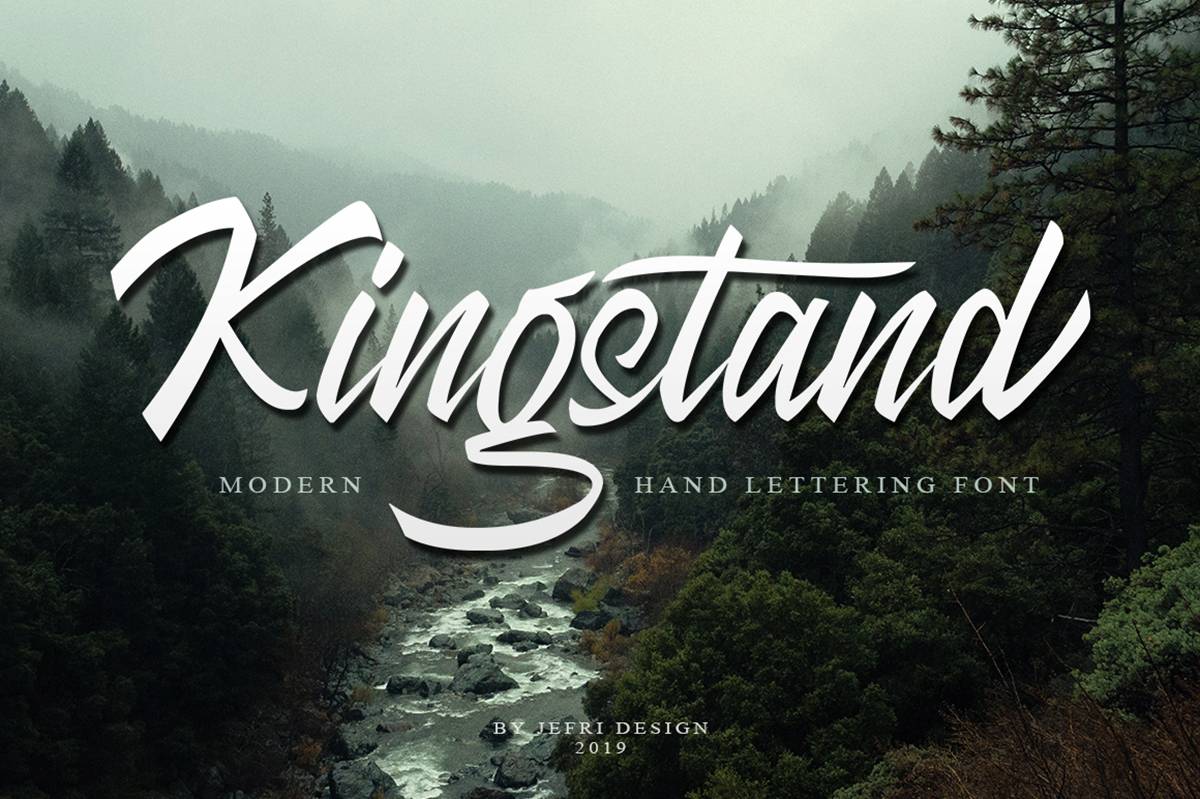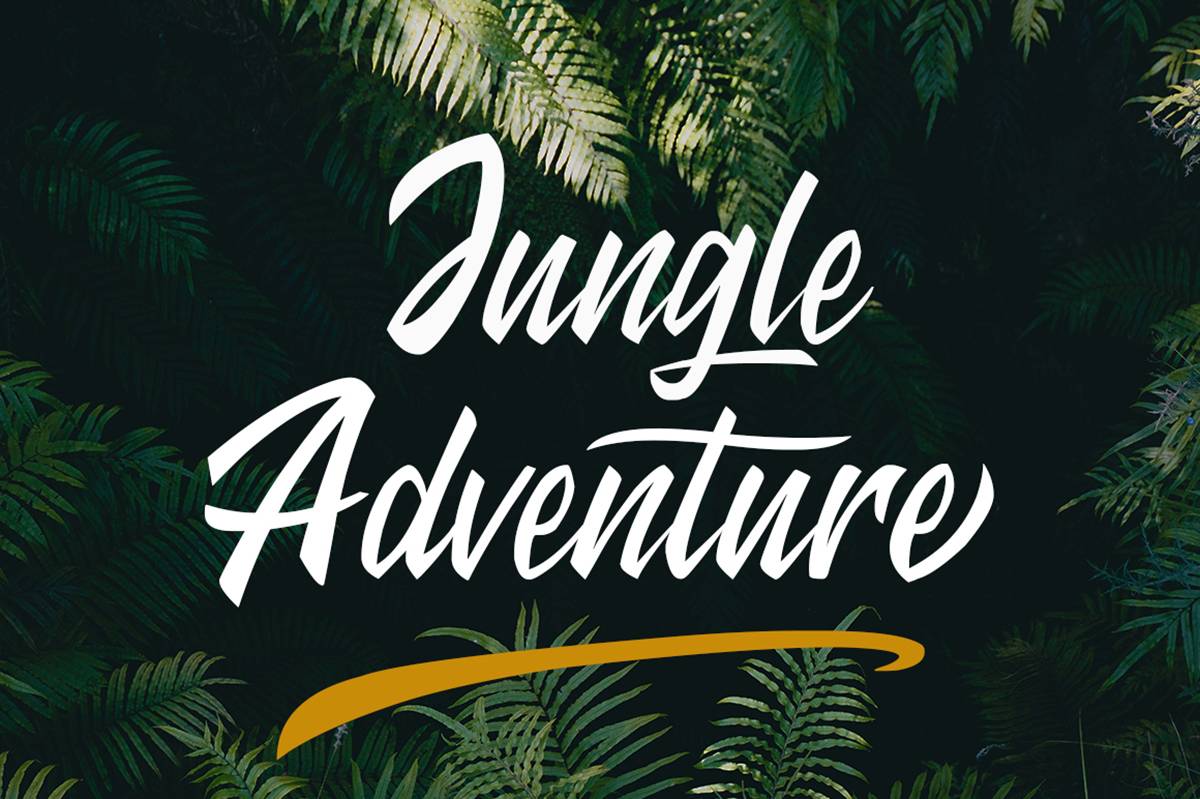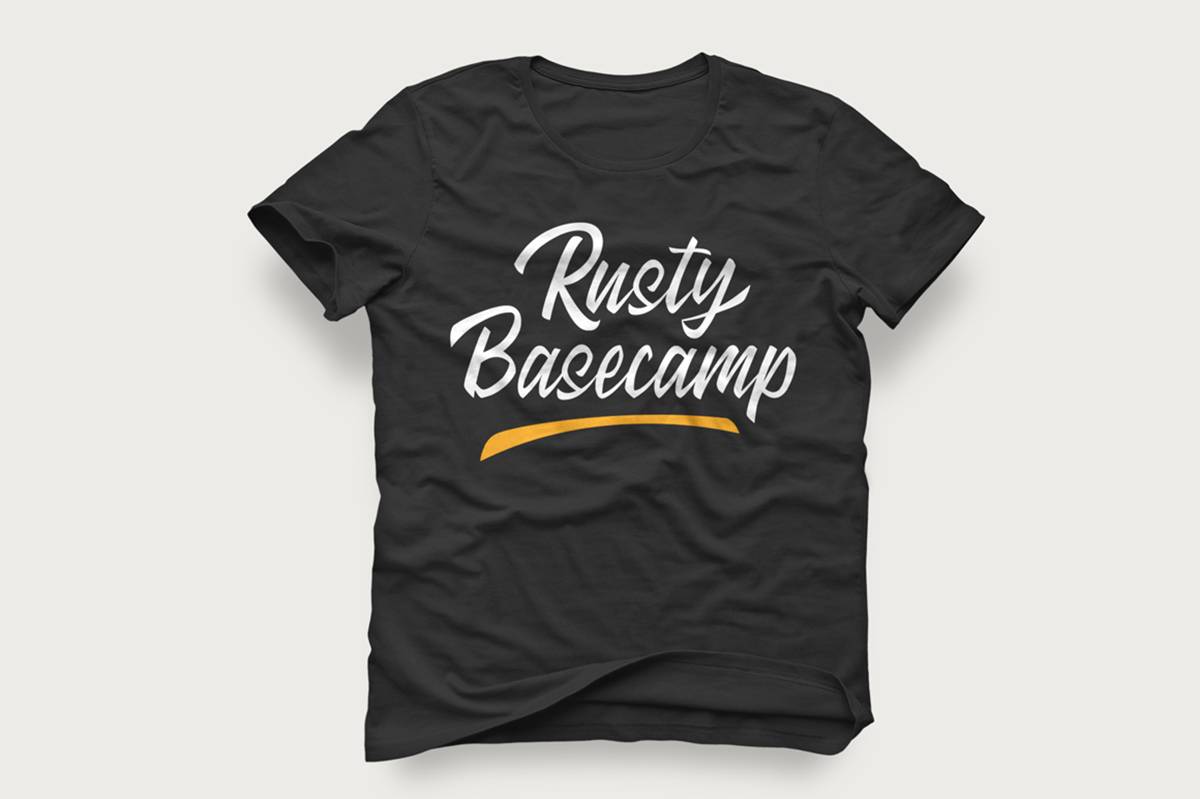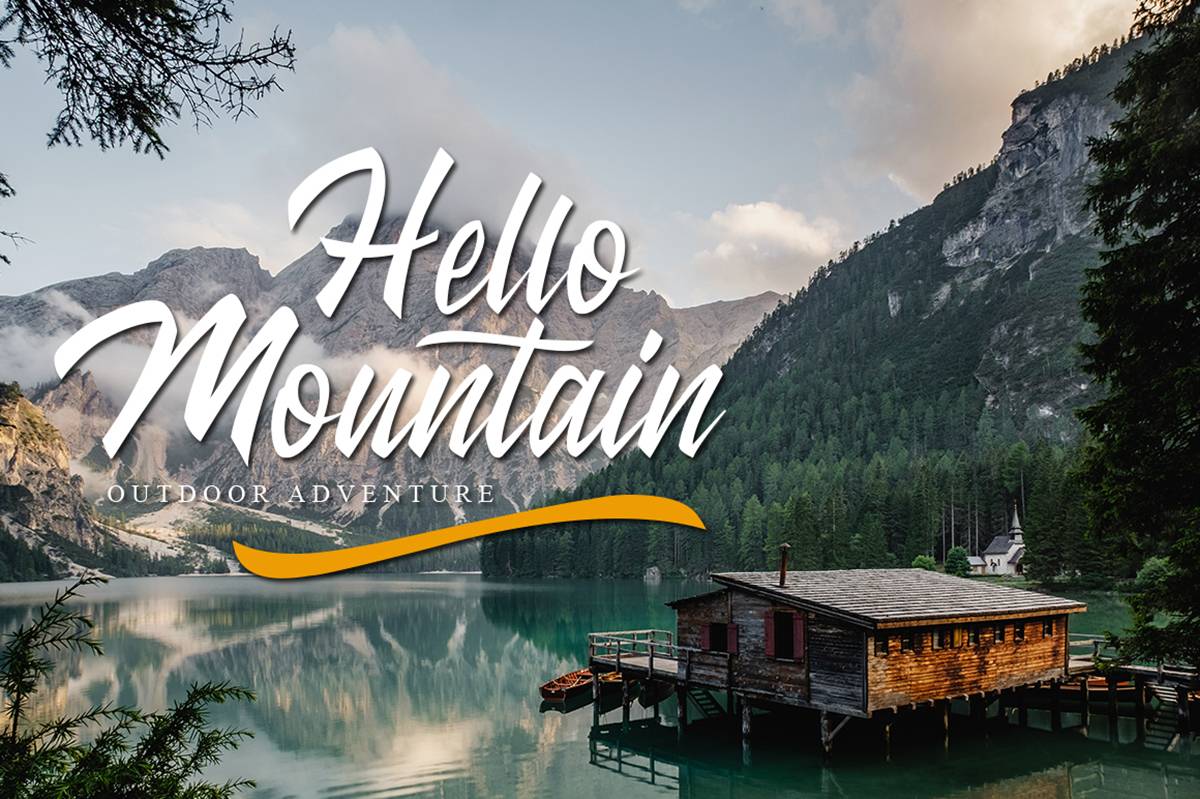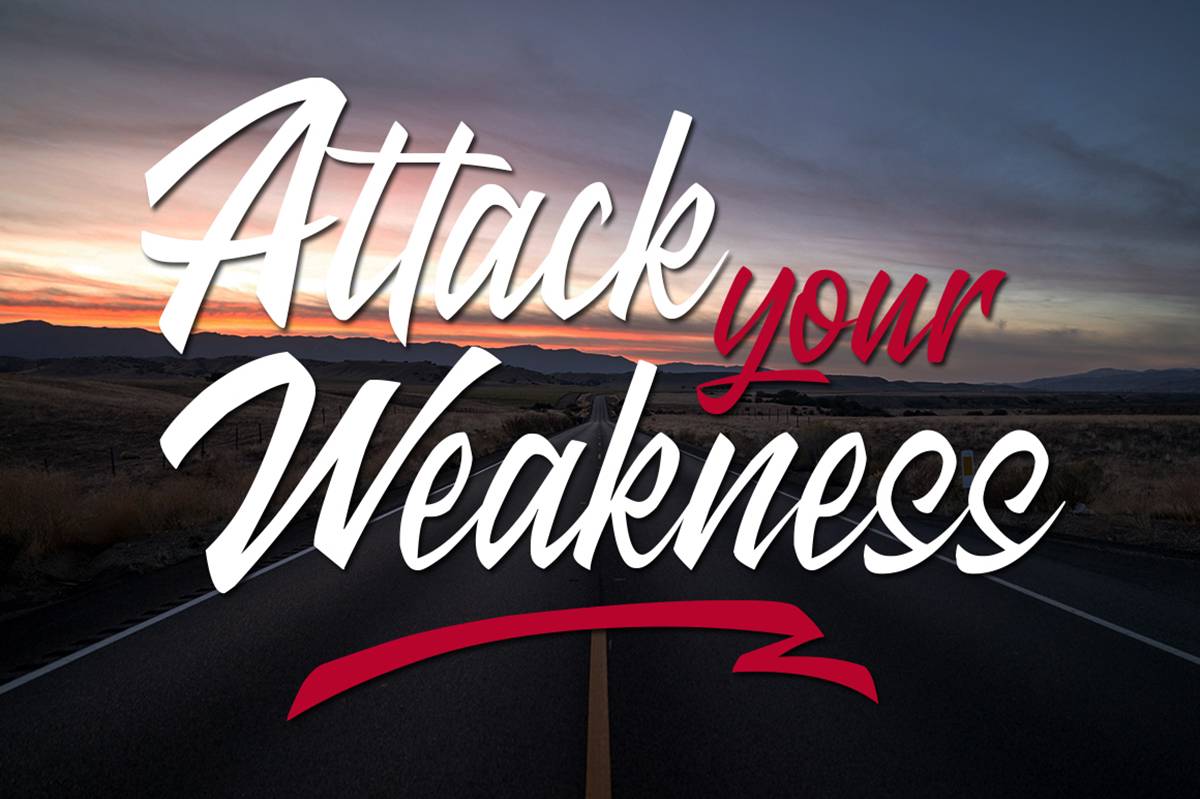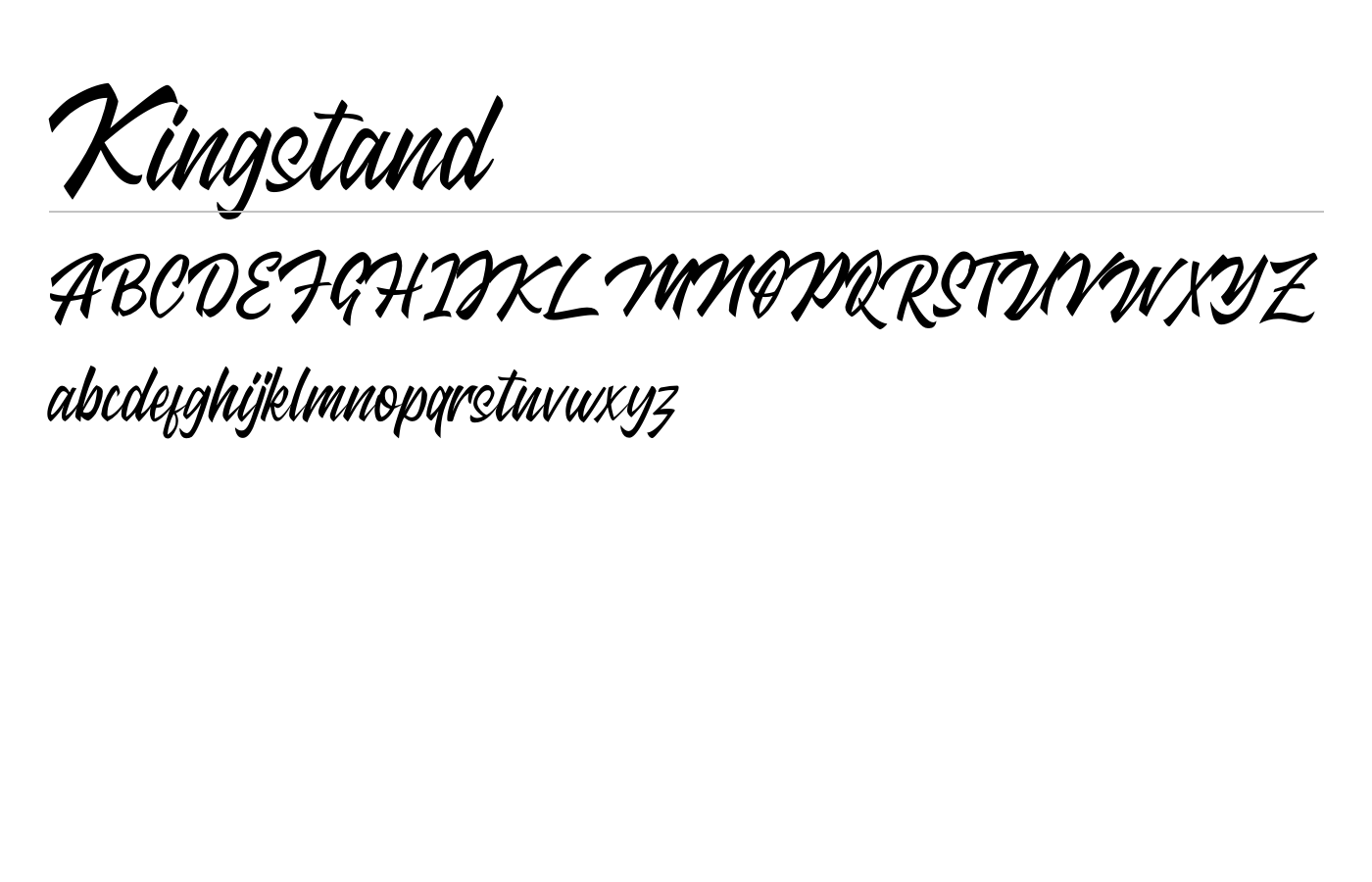
Kingstand is a stylish script font that combines a confident, handwritten flow with strong, sharp strokes. Its slightly condensed, medium-weight letterforms carry a modern elegance with smooth curves and dynamic angles, making it ideal for eye-catching headlines, branding, and creative projects that want to convey sophistication and personality. This font works wonderfully in contexts where a bold, artistic touch is needed to attract attention while maintaining readability.
Kingstand Font
About Kingstand Font